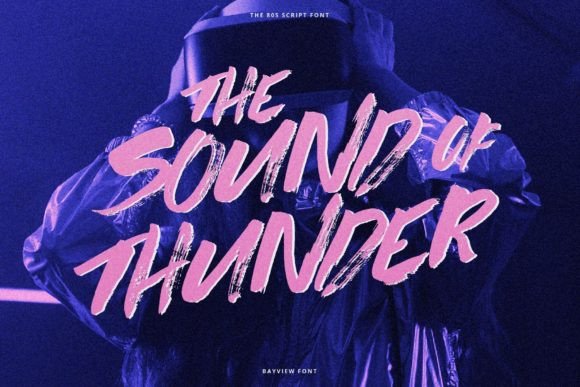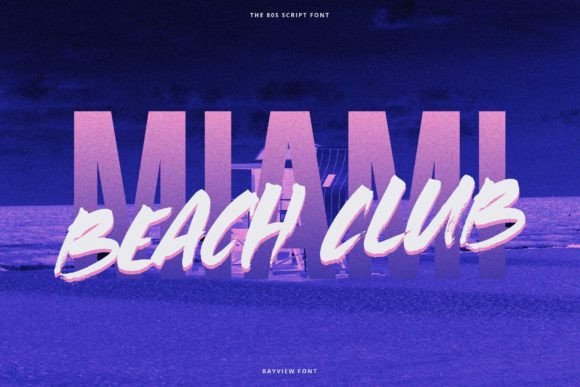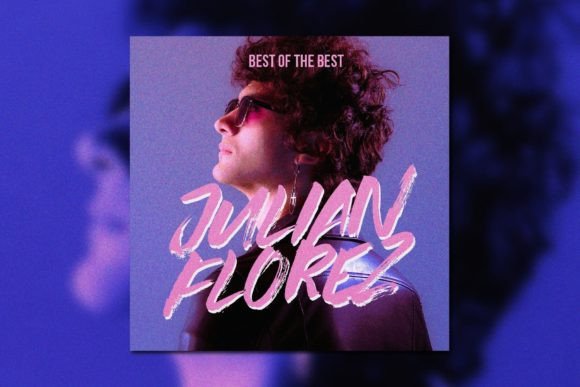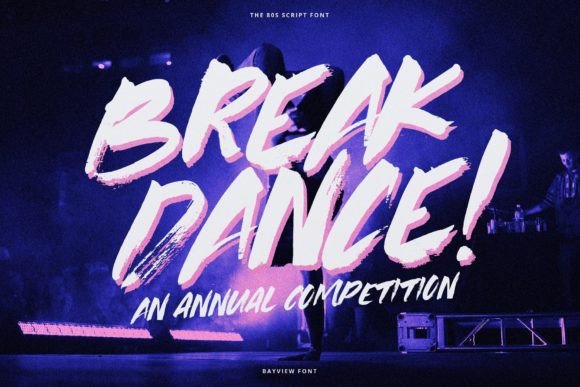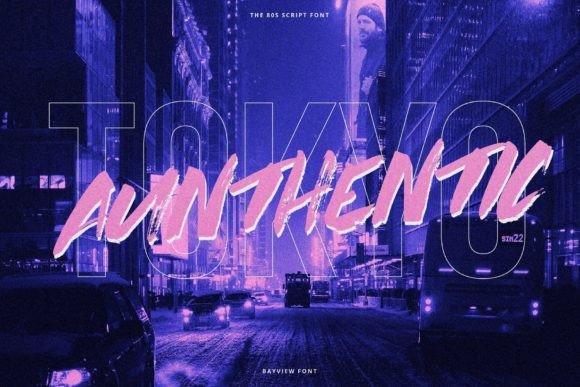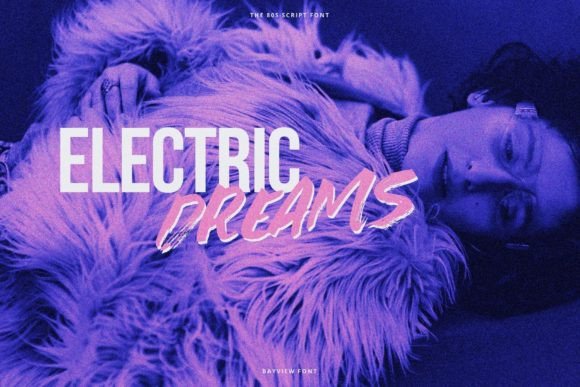
Introducing Bayview Font: The Perfect Hand-Drawn Brush Font for Retro Designs
Are you a designer or crafter looking for a unique and stylish font to add a touch of personality to your projects? Look no further than Bayview Font, a beautiful hand-drawn brush font that is sure to elevate your designs. In this article, we’ll take a closer look at Bayview Font, its features, and how you can use it to create stunning retro-inspired designs.
What is Bayview Font?
Bayview Font is a hand-drawn brush font that comes in both vector and SVG format, allowing for a unique semi-transparent effect. This flowing brush font is perfect for creating retro designs that are both stylish and eye-catching. With its natural, hand-drawn look, Bayview Font is ideal for adding a personal touch to your projects.
Key Features of Bayview Font
- Hand-drawn brush font: Bayview Font is a carefully crafted hand-drawn brush font that has a unique, organic look.
- Vector and SVG format: The font comes in both vector and SVG format, allowing for a semi-transparent effect that adds depth and dimension to your designs.
- Retro-inspired: Bayview Font is perfect for creating retro-inspired designs that are both stylish and nostalgic.
- Versatile: The font can be used for a wide range of projects, including stationery, quotes, content, and more.
Uses for Bayview Font
Bayview Font is an incredibly versatile font that can be used for a wide range of projects. Here are some ideas to get you started:
- Stationery: Use Bayview Font to create beautiful, custom stationery that is perfect for personal or business use.
- Quotes and content: Add a touch of personality to your quotes and content with Bayview Font.
- Signs and posters: Create eye-catching signs and posters with Bayview Font.
- Digital graphics: Use Bayview Font to create stunning digital graphics, such as social media graphics and blog headers.
- Crafting projects: Bayview Font is perfect for crafters who want to add a personal touch to their projects, such as scrapbooking and card making.
Tips for Using Bayview Font
Here are some tips for getting the most out of Bayview Font:
- Experiment with colors: Bayview Font looks great in a variety of colors, so don’t be afraid to experiment and find the perfect color scheme for your project.
- Play with texture: The semi-transparent effect of Bayview Font can add a beautiful texture to your designs.
- Mix and match: Combine Bayview Font with other fonts and graphics to create a unique and eye-catching design.
Bayview Font is a beautiful hand-drawn brush font that is perfect for designers and crafters who want to add a touch of personality to their projects. With its unique semi-transparent effect and retro-inspired look, Bayview Font is sure to elevate your designs. Whether you’re creating stationery, quotes, or digital graphics, Bayview Font is a versatile font that can help you achieve your design goals.